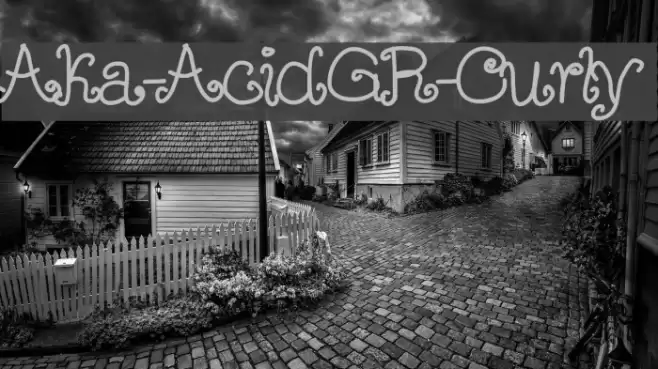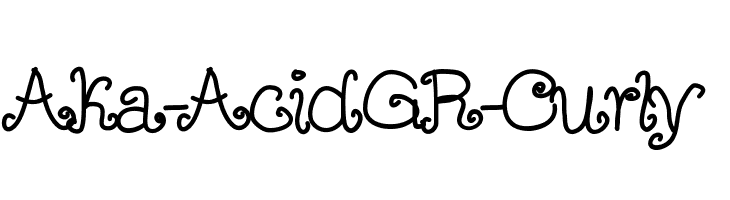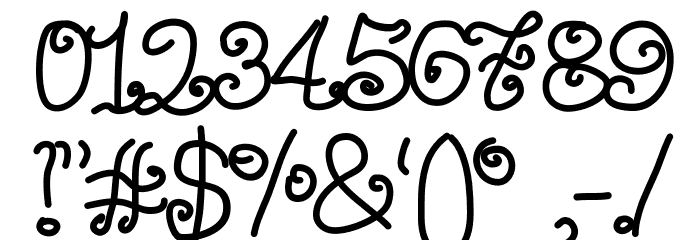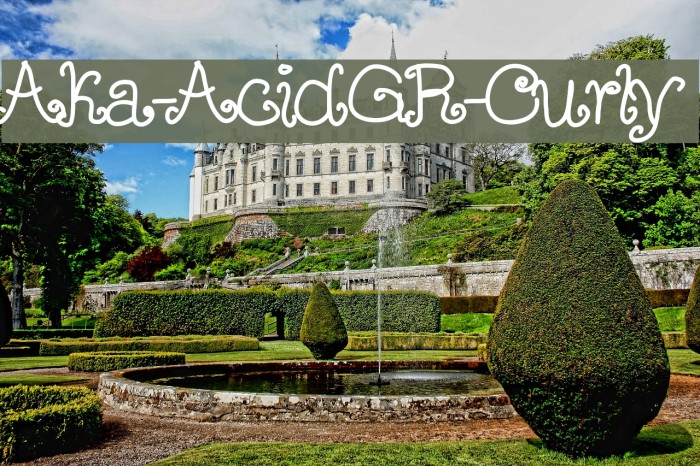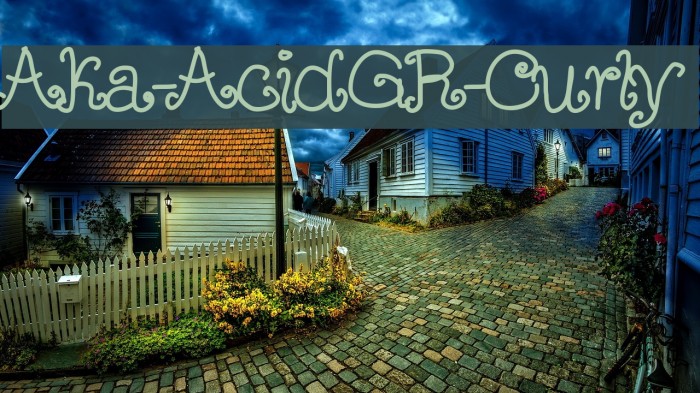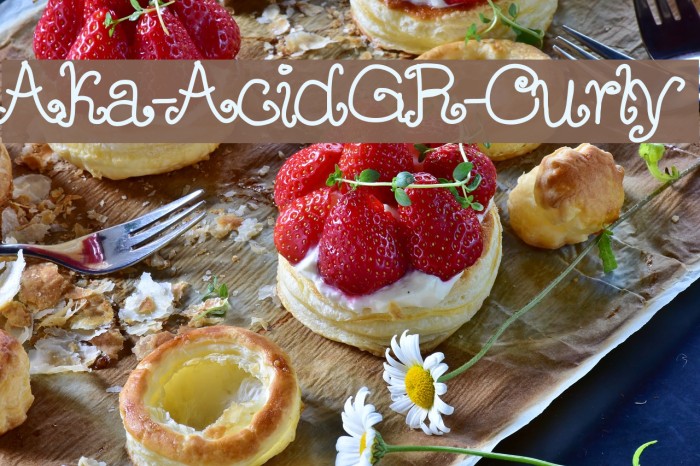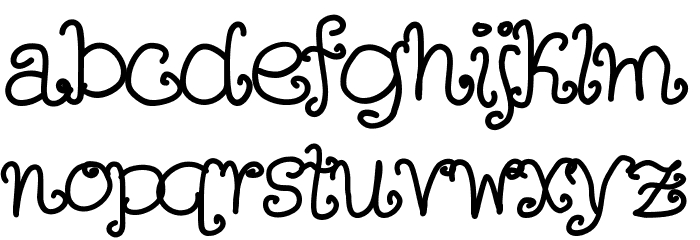
Aka-AcidGR-Curly Font
Aka-AcidGR-Curly Description
This font features a whimsical and playful design, characterized by its curly and ornate letterforms. Each character is adorned with unique swirls and loops, giving it a lively and decorative appearance. The uppercase and lowercase letters maintain a consistent style, with exaggerated curves and flourishes that add a sense of movement and fun. The numerals and special characters follow the same decorative theme, ensuring a cohesive look across all glyphs. This font is ideal for projects that require a touch of creativity and flair, making it perfect for invitations, posters, and playful branding.
A whimsical and decorative font with curly, ornate letterforms from Uncategorized fonts.
- Proposed Projects: Ideal for invitations, playful branding, posters, and creative designs.
- Use Case: Headlines, Logos, Invitations